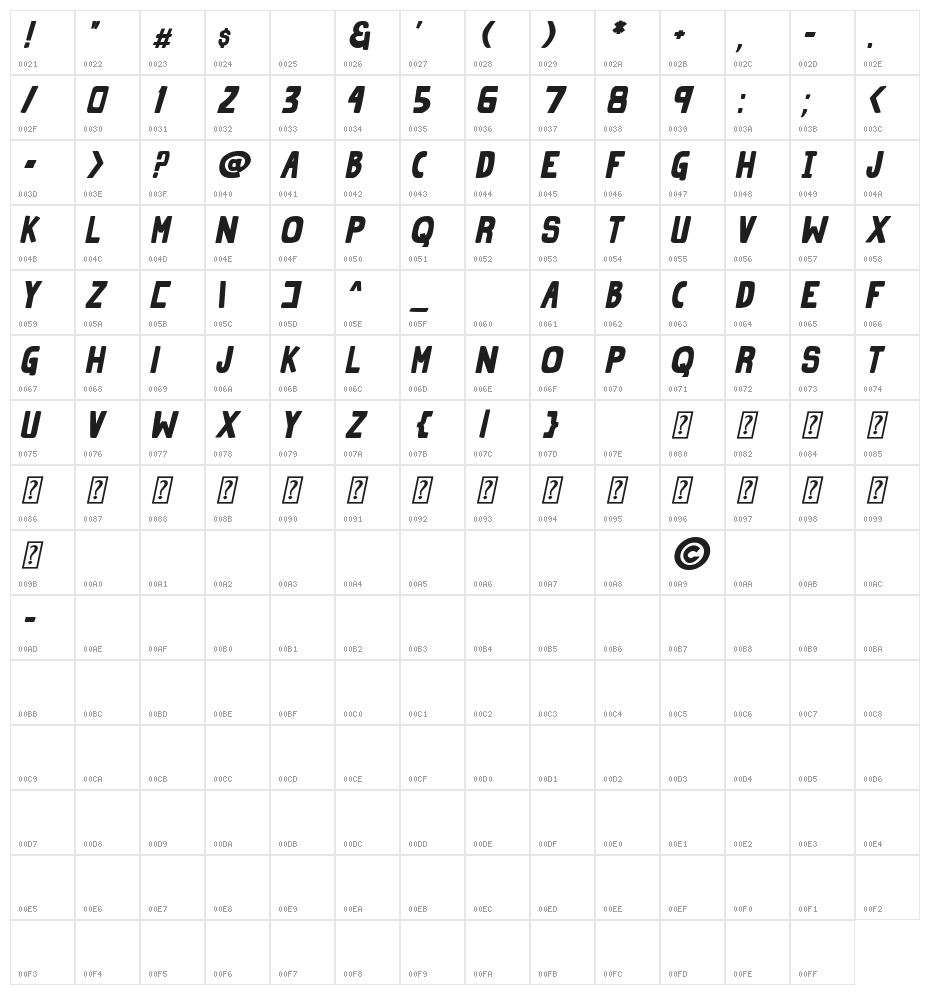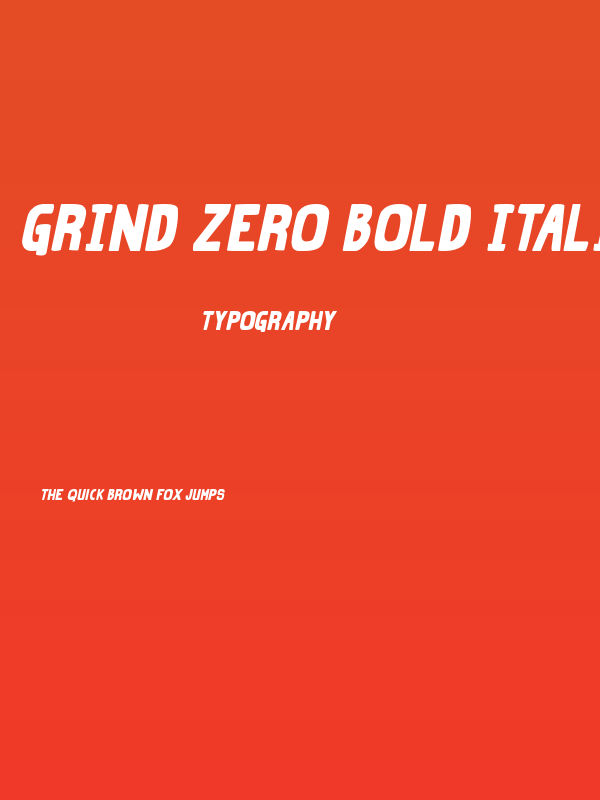
Grind Zero Bold Italic Font
Grind Zero Bold Italic Description
This font features a bold and italicized style with a modern and dynamic appearance. The characters are slightly slanted, giving a sense of motion and energy. The strokes are thick and consistent, providing a strong visual impact. The uppercase and lowercase letters maintain a cohesive design, while the numerals and special characters complement the overall aesthetic. The font's boldness and slant make it suitable for attention-grabbing headlines and display purposes.
| Proposed Projects | Ideal for sports branding, dynamic posters, and modern advertising campaigns. |